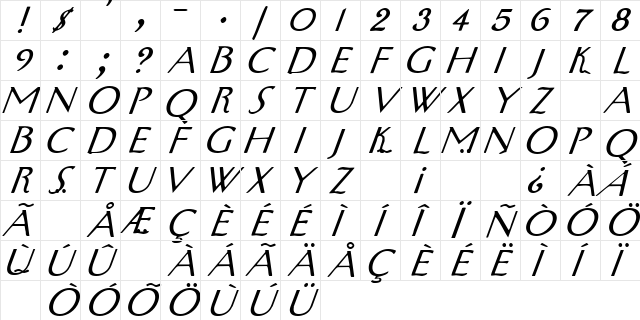
Manhattan Italic
Design Context for Manhattan Typeface
Manhattan is a composed and adaptable typeface that performs quietly and consistently across a wide range of design contexts. The dynamic lean of this cut emphasises speed and emphasis in any layout.
Pro Tip: Try Manhattan for annotation and caption copy alongside an upright companion — the contrast in angle creates a dynamic but ordered typographic system.